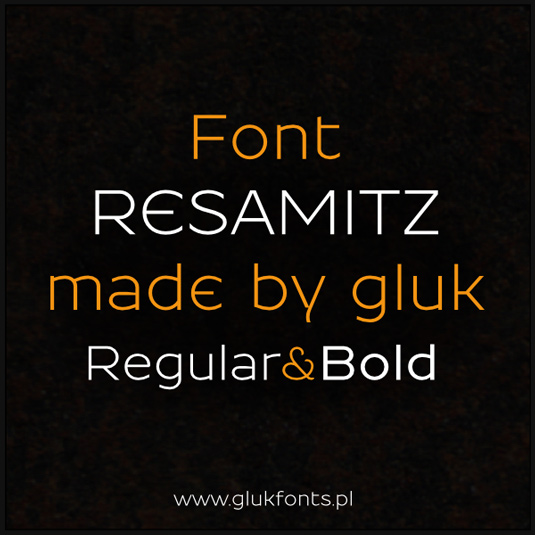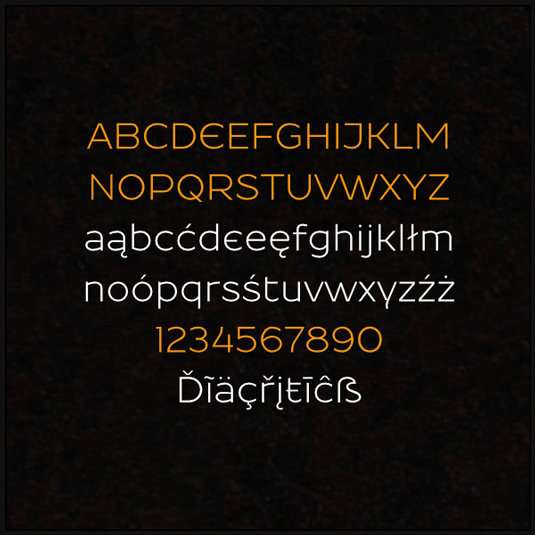
Font of the day: Resamitz
Every day we showcase the best fonts on the web. Today it's Resamitz by Grzegorz Luk, which is totally free to download!
Resamitz by Grzegorz Luk
Our font of the day was created by Polish type designer Grzegorz Luk. One of many designs by Luk, his latest offering is a sans serif font, available in both regular and bold and completely free of charge.